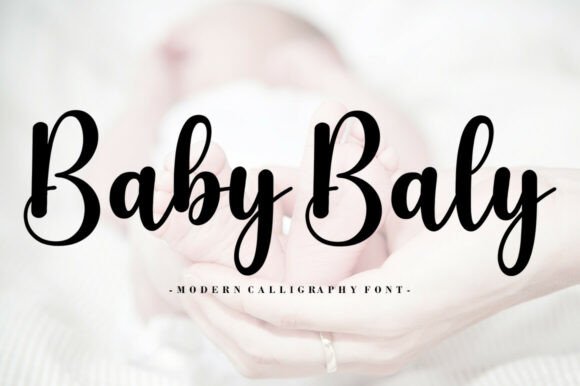
Baby Baly Font: Elevate Your Visual Artistry with Modern Typography
In the world of visual artistry, typography plays a crucial role in conveying the essence of a brand or creative project. A well-designed font can elevate the aesthetic appeal of a photograph, website, or branding material, making it more engaging and memorable for the audience. One such font that has gained popularity among designers and artists is the Baby Baly Font. In this article, we’ll explore the features and benefits of Baby Baly, and how it can enhance your photography branding, watermarking, and website design.
What is Baby Baly Font?
Baby Baly is a versatile and modern typeface designed to complement visual artistry. With clean lines and a sleek aesthetic, this font is perfect for designers and artists looking to add a touch of sophistication to their work. Baby Baly is a carefully crafted font that exudes elegance and poise, making it an excellent choice for a wide range of creative projects.
Key Features of Baby Baly Font
- Clean Lines and Sleek Aesthetic: Baby Baly features clean lines and a sleek aesthetic that gives it a modern and sophisticated look.
- Versatility: This font is highly versatile and can be used for various creative projects, including photography branding, watermarking, and website design.
- Elegance and Poise: Baby Baly exudes elegance and poise, making it perfect for designers and artists looking to add a touch of sophistication to their work.
Applications of Baby Baly Font
Baby Baly is an excellent choice for various creative projects, including:
- Photography Branding: Use Baby Baly to create stunning photography branding materials, such as business cards, portfolios, and social media graphics.
- Watermarking: Add a touch of elegance to your watermarks with Baby Baly, making your images stand out while protecting your work.
- Website Design: Elevate your website design with Baby Baly, using it for headings, titles, and other typography elements to create a cohesive and visually appealing look.
Benefits of Using Baby Baly Font
Using Baby Baly Font offers several benefits, including:
- Enhanced Visual Appeal: Baby Baly adds a touch of sophistication and elegance to your creative projects, making them more visually appealing.
- Consistency: With Baby Baly, you can maintain consistency in your typography across various platforms and materials.
- Professionalism: This font exudes professionalism, making it perfect for designers and artists looking to establish a strong brand identity.
Tips and Tricks for Using Baby Baly Font
Here are some tips and tricks for using Baby Baly Font effectively:
- Pair it with Other Fonts: Experiment with pairing Baby Baly with other fonts to create a unique and visually appealing typography combination.
- Adjust Font Sizes: Adjust font sizes to create visual hierarchy and emphasize important elements in your design.
- Use it for Headings: Use Baby Baly for headings and titles to add a touch of elegance and sophistication to your design.
In conclusion, Baby Baly Font is a versatile and modern typeface that can elevate your visual artistry and creative projects. With its clean lines, sleek aesthetic, and elegant feel, this font is perfect for designers and artists looking to add a touch of sophistication to their work. Whether you’re looking to enhance your photography branding, watermarking, or website design, Baby Baly is an excellent choice.